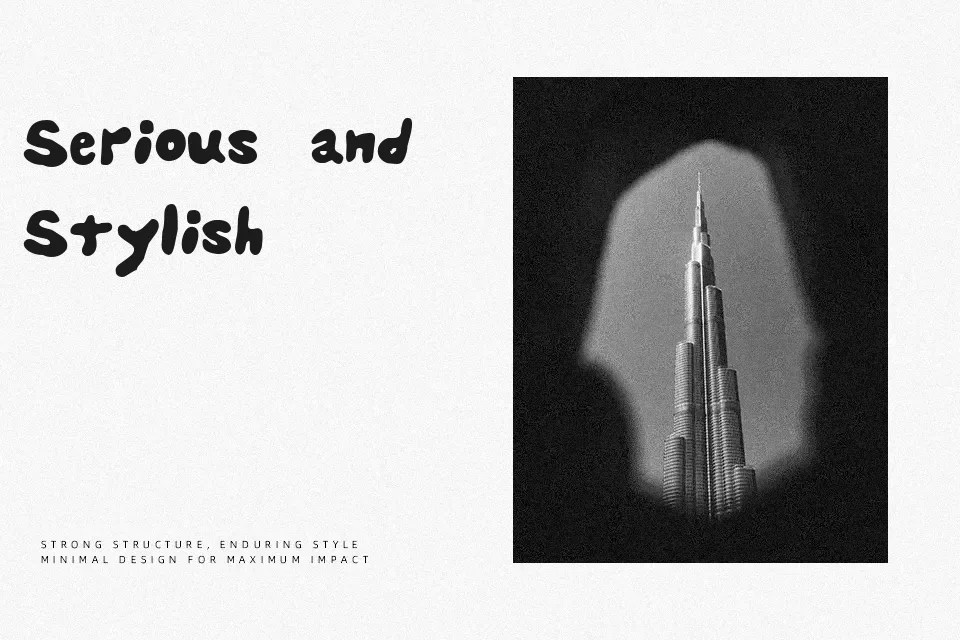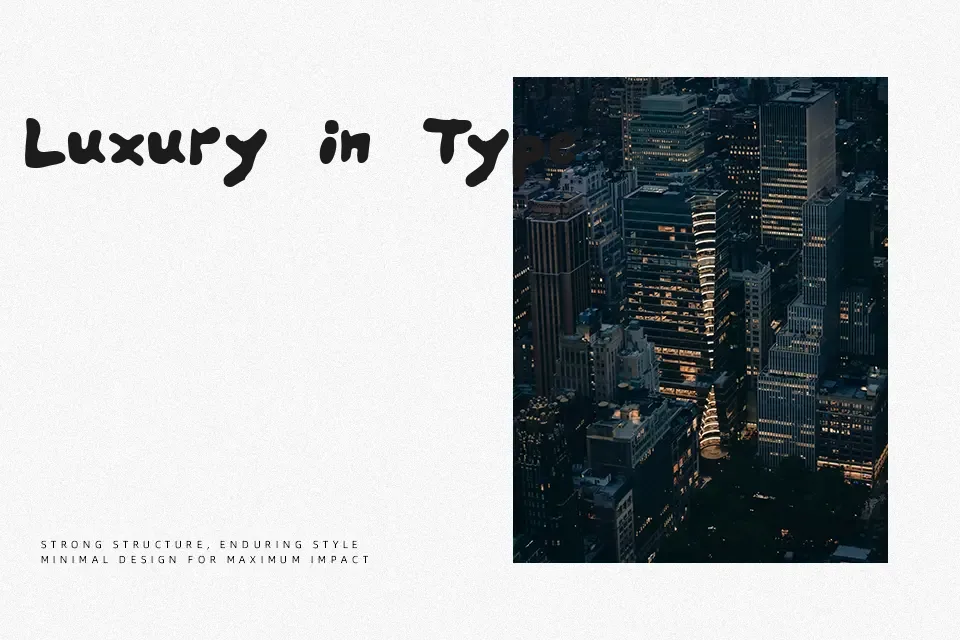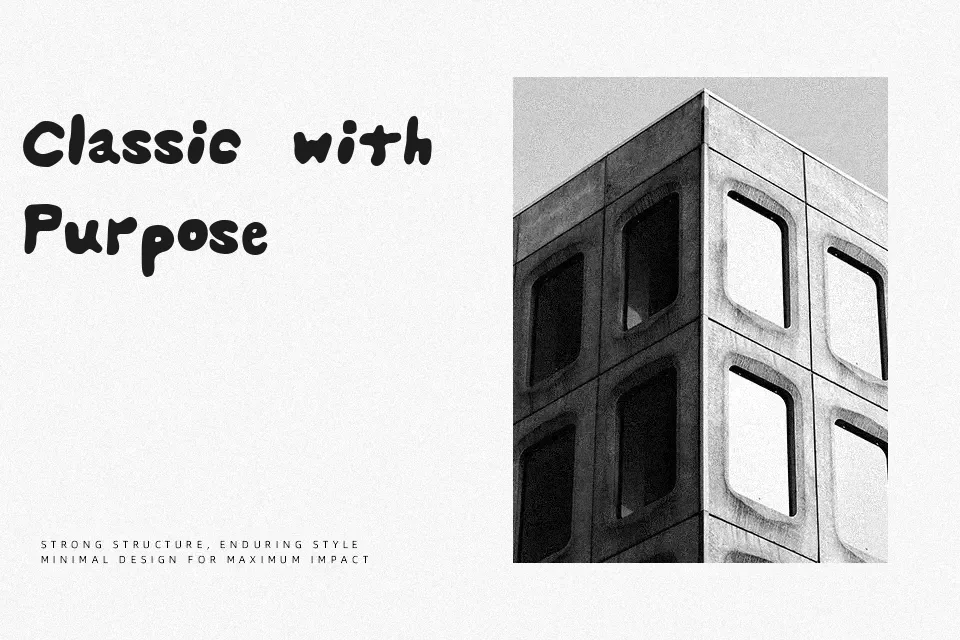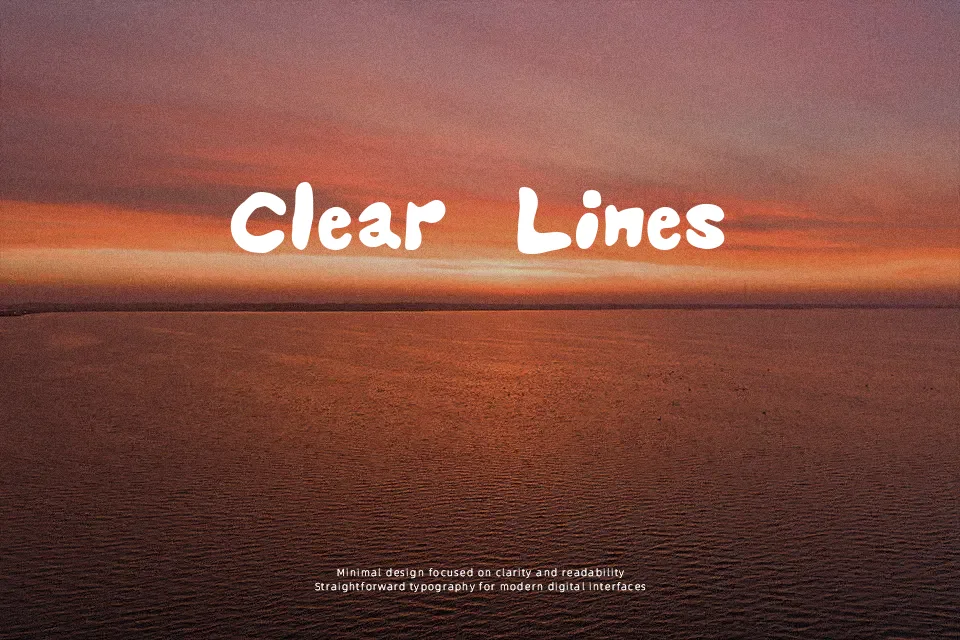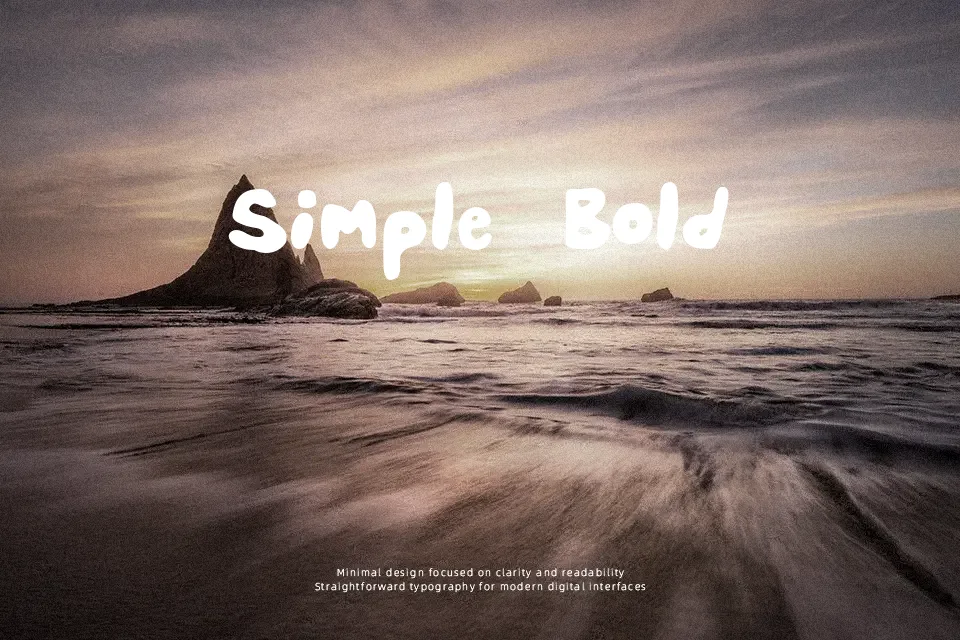
Splats Unsplatted Font
Splats Unsplatted Font features heavy, rounded letterforms defined by fluid contours, asymmetrical curves, and a loose comic aesthetic. The typeface exhibits uneven stem weights and informal glyph proportions that establish an energetic, hand-crafted visual rhythm. Moderate character spacing prevents adjacent letters from colliding, allowing uppercase and lowercase forms to remain easily distinguishable in large headlines, cartoon posters, and casual packaging. However, the exaggerated stroke bulk and idiosyncratic terminal shapes significantly impair legibility at smaller scales, making extended reading uncomfortable in dense text settings. While unsuitable for editorial body copy, the design succeeds as a punchy display solution for lighthearted projects.
Best For: children book covers, cartoon title cards, playful packaging, animated video headers
Not Ideal For: continuous body text, legal documents, small interface labels, dense editorial layouts